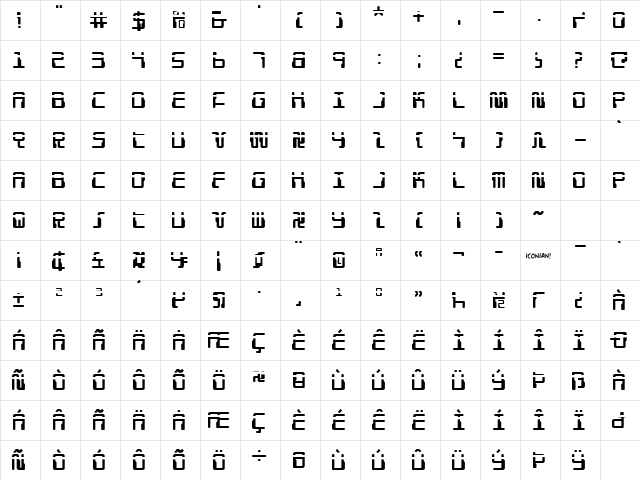
Droid Lover Laser Regular Free Font
Droid Lover Laser Regular
Complete Droid Lover Laser Regular glyph index. Displaying only characters natively supported by Droid Lover Laser Regular font.
Design Context for Droid Lover Laser
Droid Lover Laser is a composed and adaptable typeface that performs quietly and consistently across a wide range of design contexts.